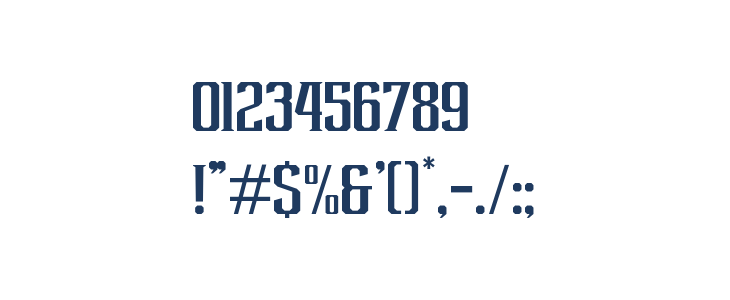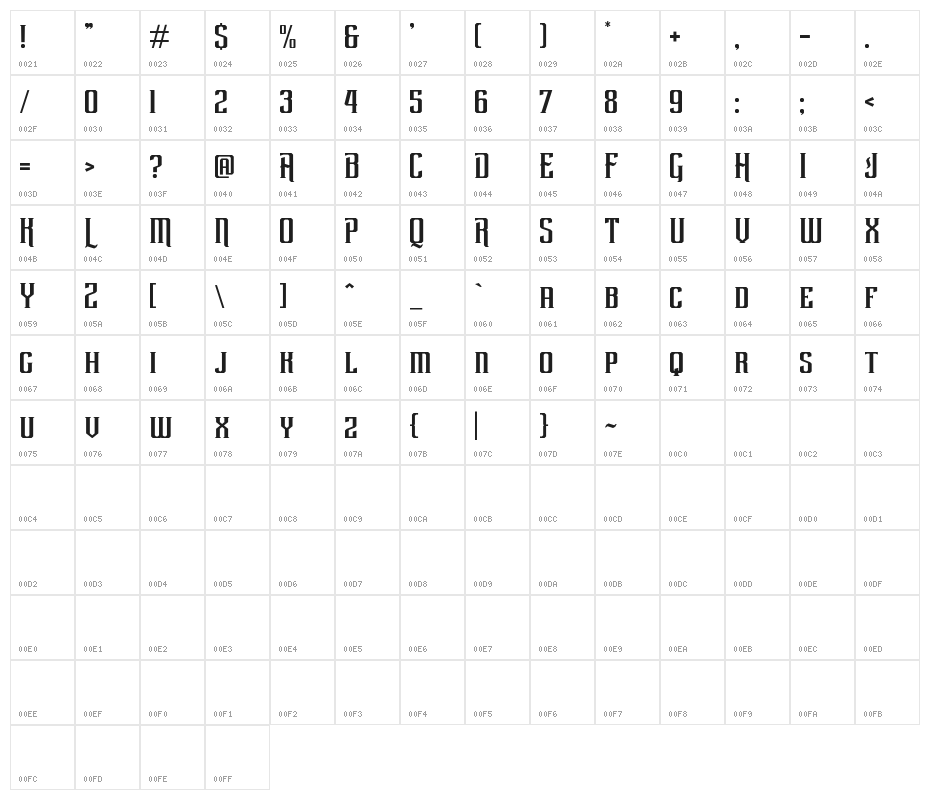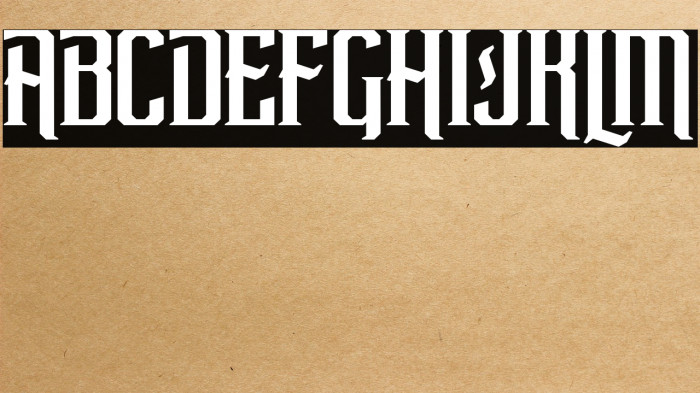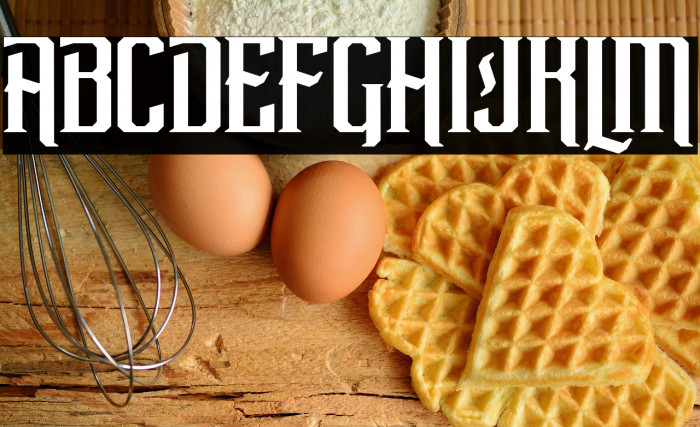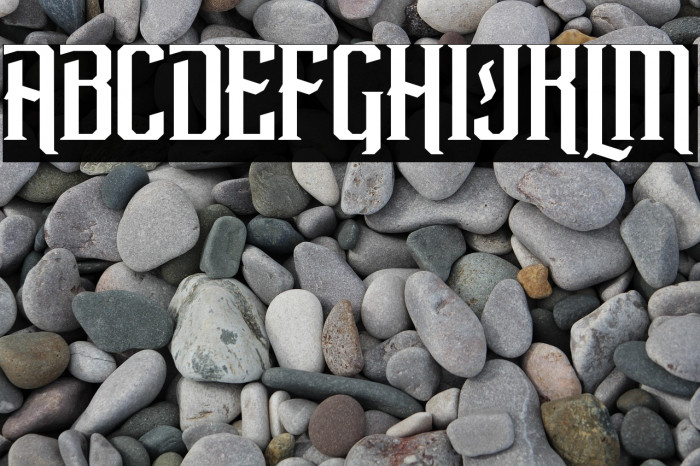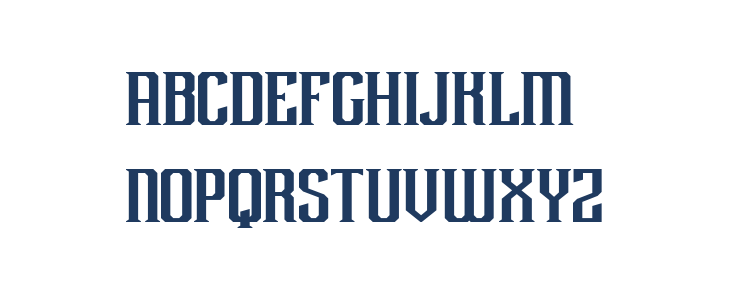
Rebute Font
Rebute Description
This font exhibits a bold and striking design, characterized by its sharp, angular lines and a distinct Gothic influence. The uppercase letters are tall and narrow, with pointed serifs that give a sense of strength and authority. The lowercase letters maintain the same angular style, ensuring consistency throughout the typeface. Numbers are equally bold, with a uniform height that matches the uppercase letters. Special characters are designed to complement the overall aesthetic, featuring the same sharp angles and bold presence. This font is ideal for projects that require a dramatic and impactful look.